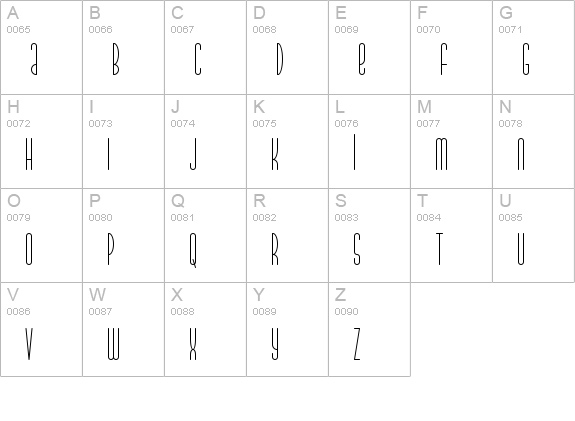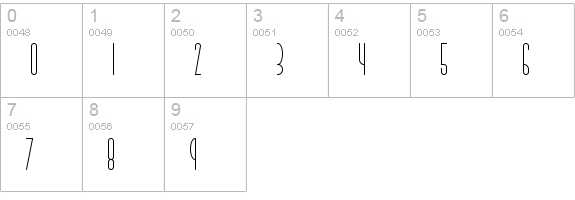
Parkland Font Details
Parkland font is a stunning typeface that exudes elegance and sophistication. It is the perfect combination of modernity and classic charm, making it an ideal choice for a wide range of design projects. With its sleek and graceful letterforms, Parkland font brings a touch of refinement to any creative endeavor. Its clean lines and balanced proportions make it highly legible, ensuring that your message will be conveyed with clarity and style. One of the most remarkable features of Parkland font is that it is available for free. Yes, you heard it right! This incredible font can be downloaded at absolutely no cost from FontsMarket.com. Whether you are a professional designer or an aspiring artist, this generous offer allows you to enhance your work without breaking the bank. The versatility of Parkland font is another aspect that sets it apart. It can be used in various design applications, from logos and branding materials to invitations, headlines, and body text. Its wide range of weights and styles provides endless possibilities for creating visually captivating designs. Parkland font is not just visually appealing; it also offers exceptional functionality. It is compatible with both Mac and PC operating systems and can be easily integrated into any design software. This seamless compatibility ensures a hassle-free experience, allowing you to focus on unleashing your creativity. In conclusion, Parkland font is a remarkable typeface that effortlessly combines modern aesthetics with timeless elegance. Its availability for free download at FontsMarket.com makes it an invaluable asset for designers and creatives alike. So why wait? Take advantage of this incredible offer and elevate your designs to new heights with Parkland font.